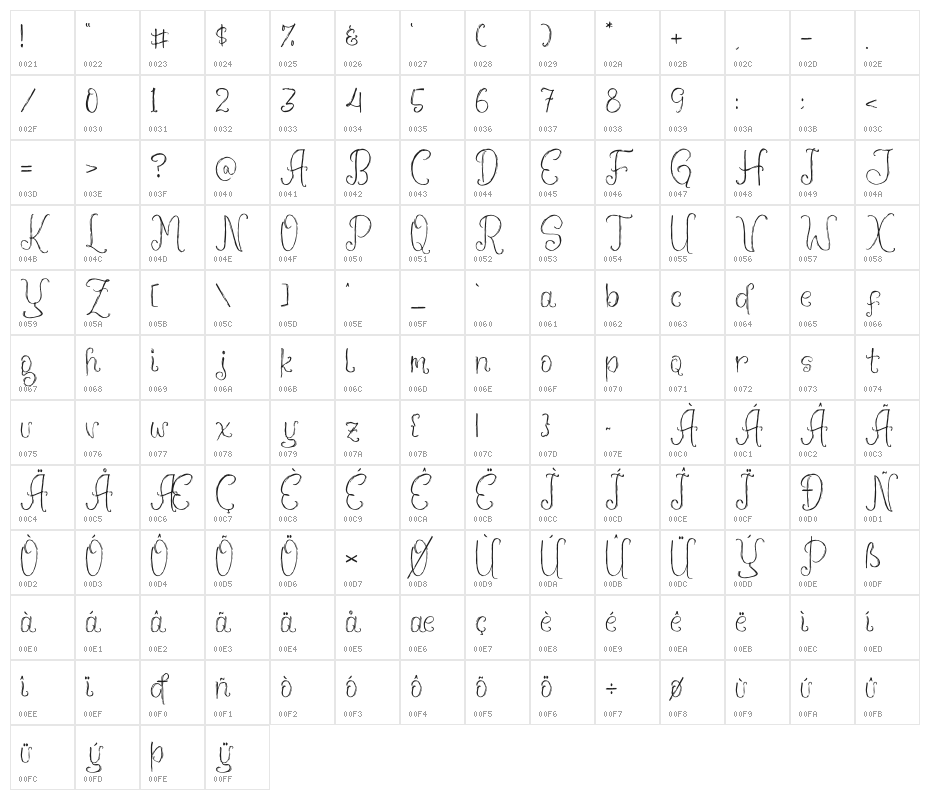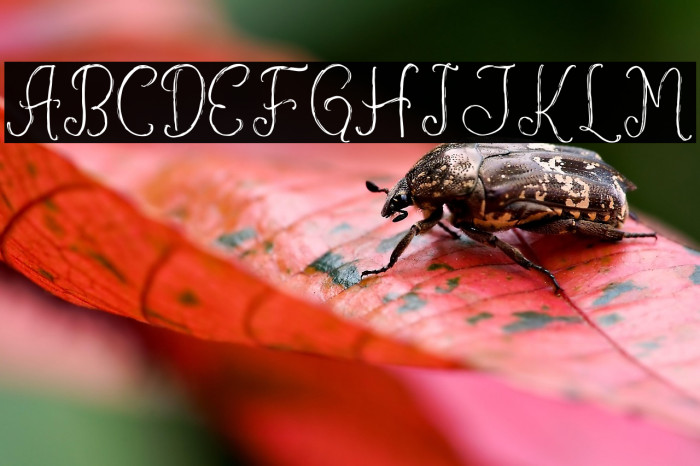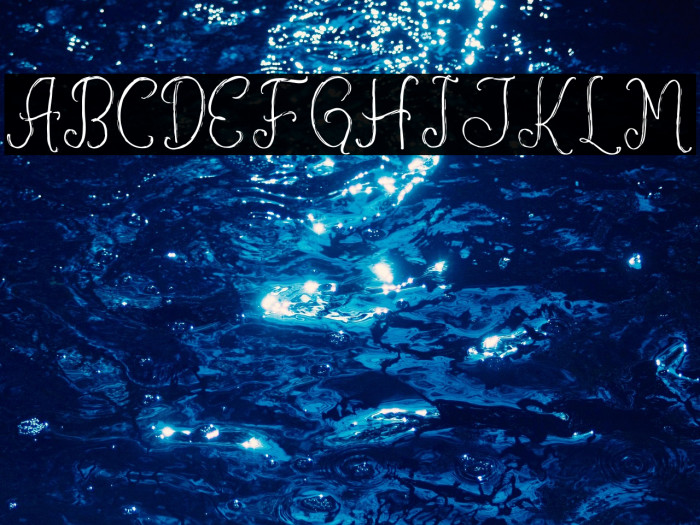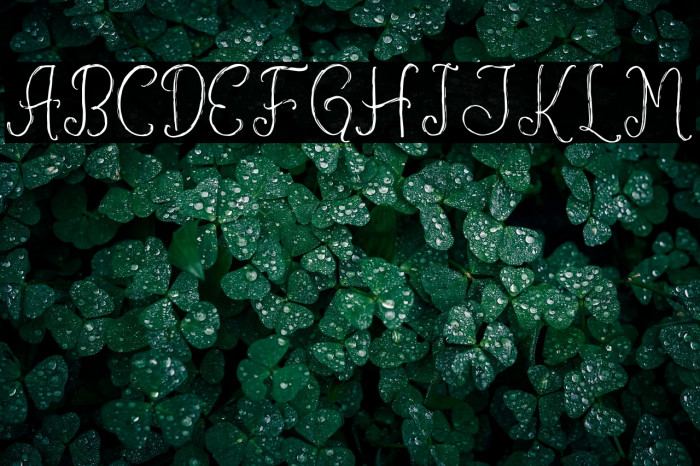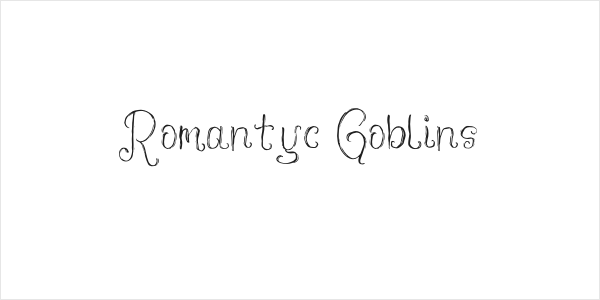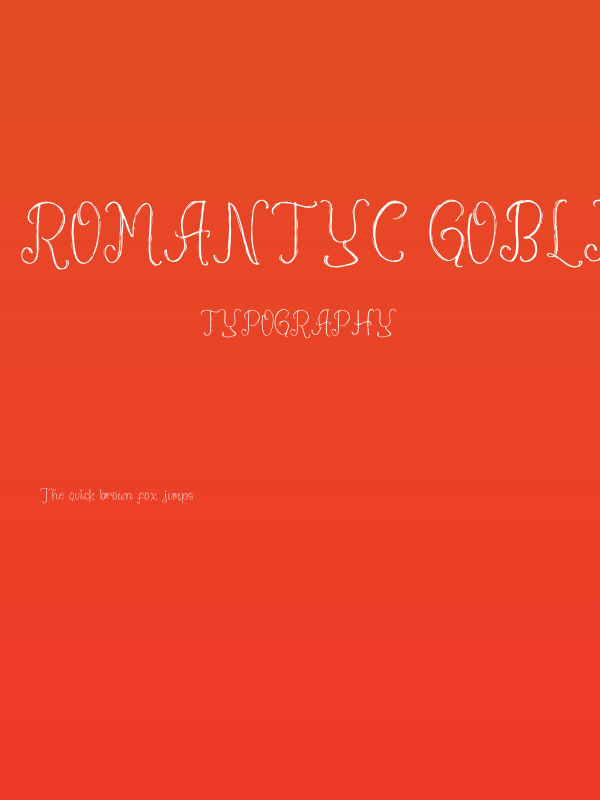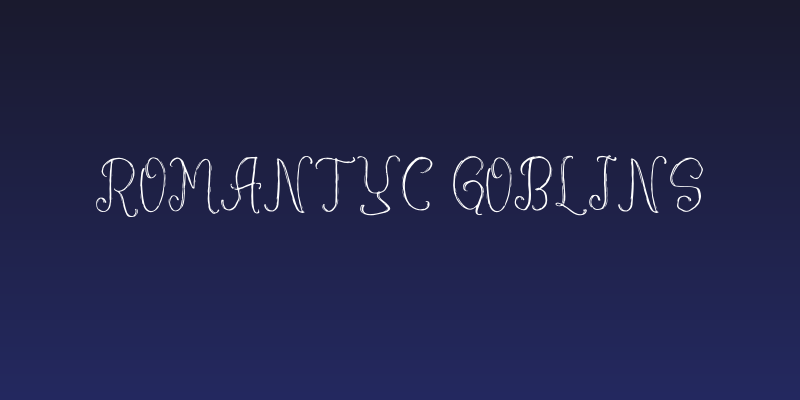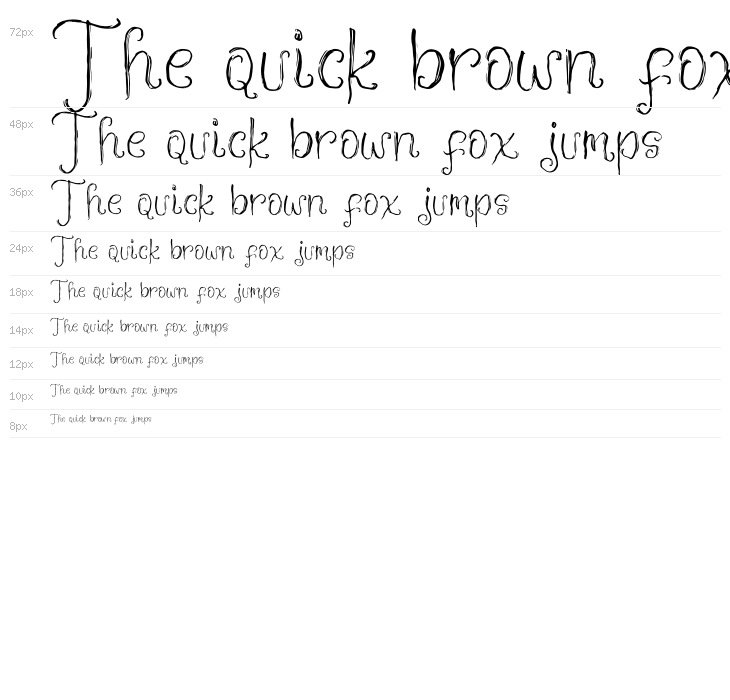
Romantyc Goblins Font
Romantyc Goblins Description
This font features a whimsical and playful design, characterized by its curly and uneven strokes. The letters have a hand-drawn appearance, with varying thickness that adds a dynamic and lively feel. The uppercase letters are tall and slender, while the lowercase letters maintain a consistent style with a slightly more compact form. Numbers and special characters follow the same playful aesthetic, making them suitable for creative and informal designs. The overall look is both charming and unique, perfect for projects that require a touch of personality and creativity.
Use CaseLogos, Headlines, Creative projects
Proposed ProjectsIdeal for greeting cards, children's books, playful branding, and creative posters.